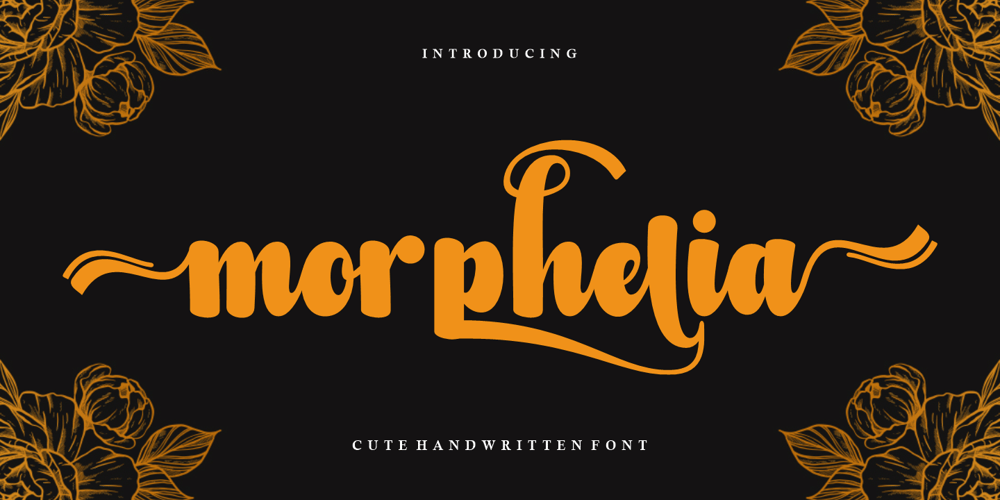
Morphelia Font Family was designed by Afri Giani and published by Gian Studio. Morphelia contains 1 styles and family package options. Morphelia is a modern calligraphy font. This font is made for those of you who need a touch of elegance and a reflection of modern style in their designs. You can use Morphelia for various purposes such as logos, brochures, business cards, wedding invitations, packaging, letterhead, labels, news, posters, and more.Morphelia is built with OpenType features and includes initial and final swash, alternative swash characters for most lowercase letters, numbers, punctuation, alternatives, ligatures and also supports some western languages.Designers: Afri GianiPublisher: Gian Studio